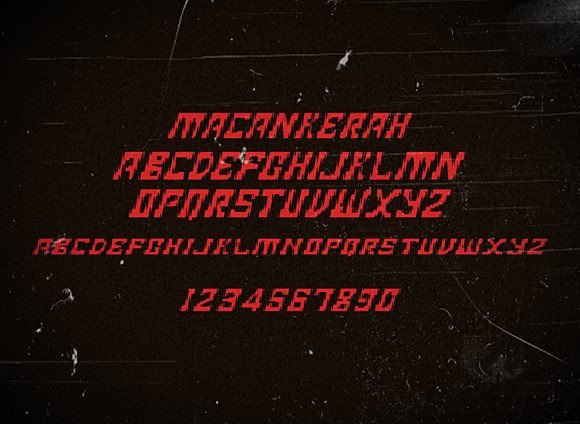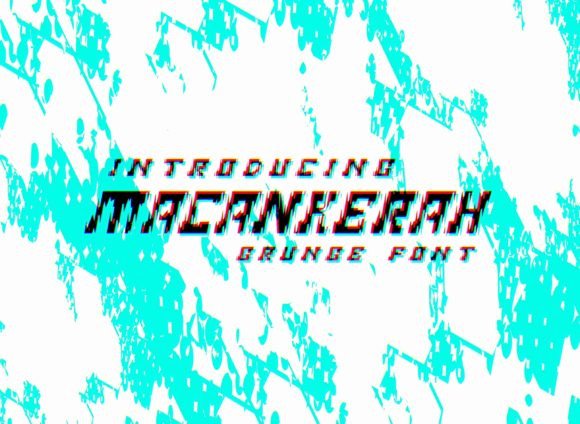
Introduction to Macankerah Font
Macankerah is a cool and unique display font.
Its strong and masculine look makes it suitable for all your projects that need bold and daring typography .
Key Features of Macankerah Font
Why Choose Macankerah Font?
Macankerah Font offers exceptional quality and versatility, making it a valuable addition to your design toolkit. Whether you’re creating for personal projects or commercial use, Macankerah Font delivers professional results.